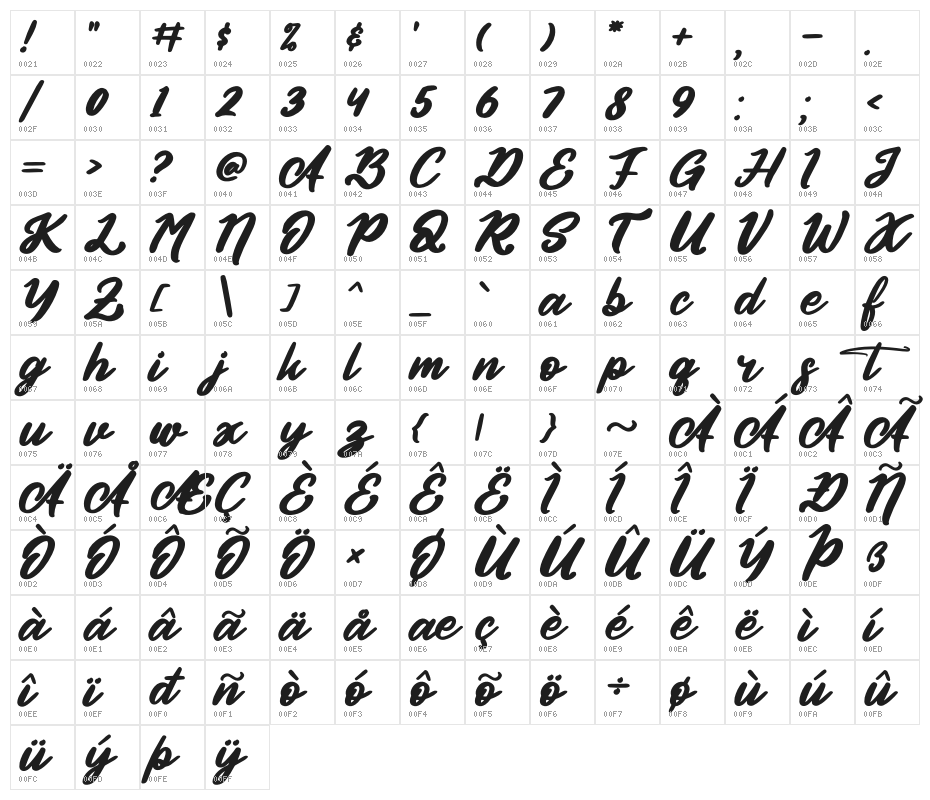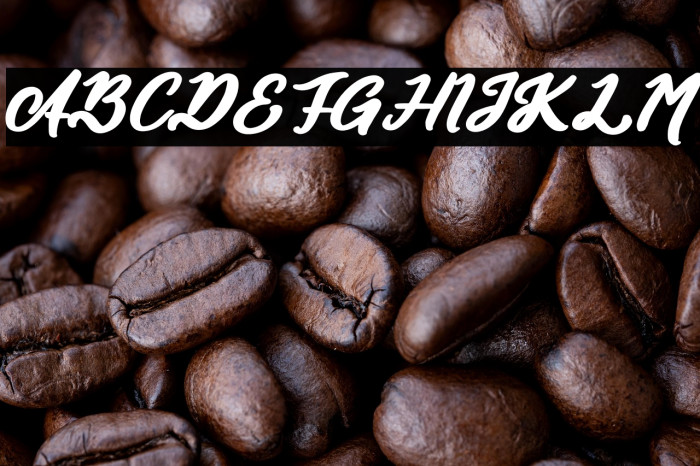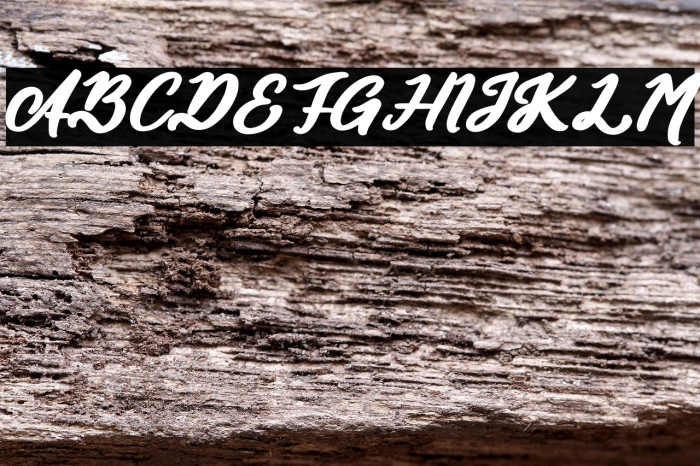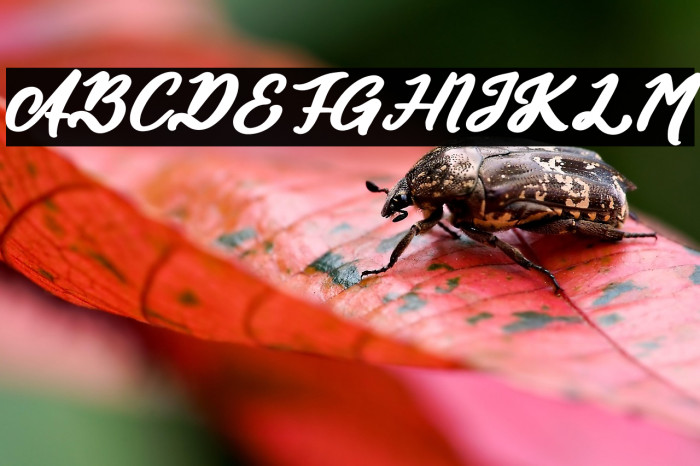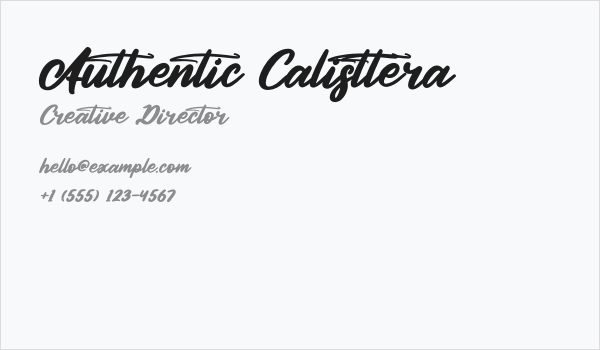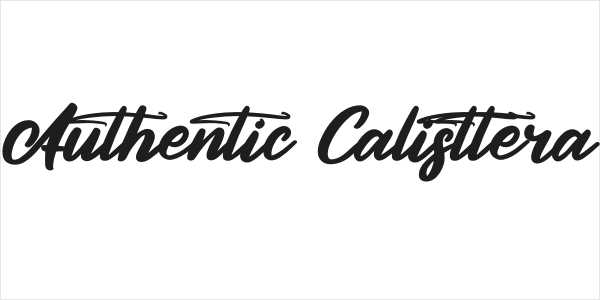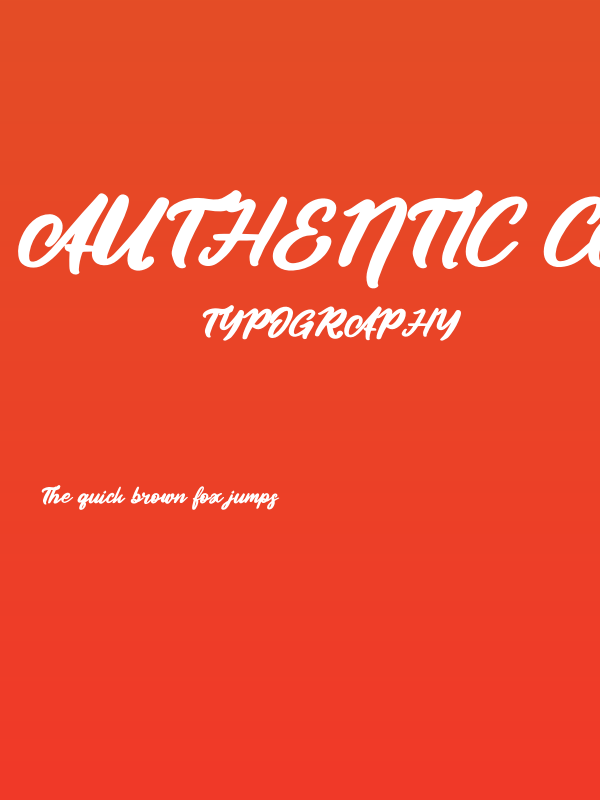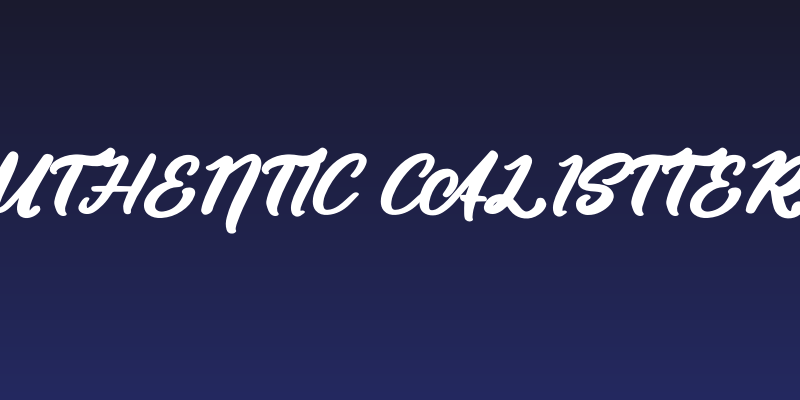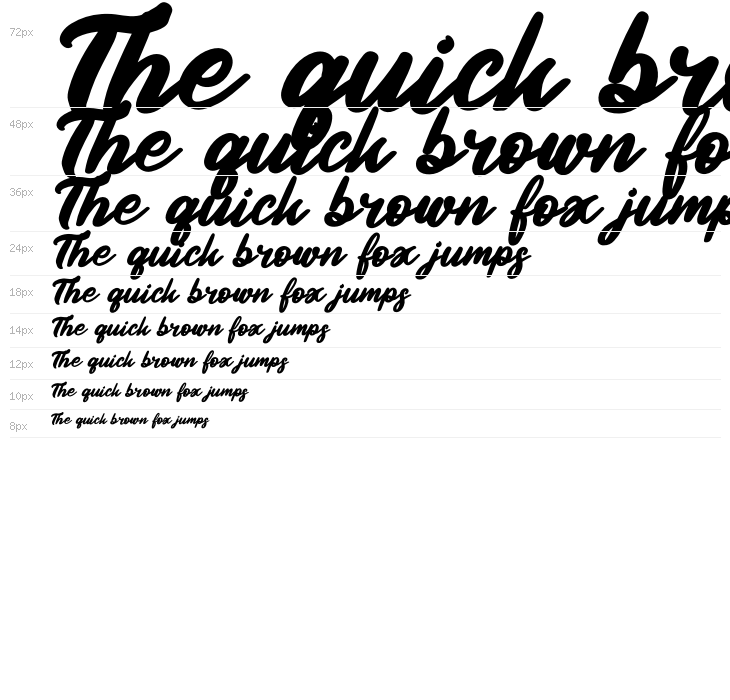
Authentic Calisttera Font
Authentic Calisttera Description
This font exudes a bold and expressive style, characterized by its fluid, cursive script that mimics the elegance of handwritten calligraphy. The uppercase letters are slightly more upright, while the lowercase letters flow seamlessly into one another, creating a sense of movement and grace. The numerals and special characters maintain the same dynamic and bold appearance, ensuring consistency across all text. The thick strokes and rounded edges give it a friendly yet sophisticated look, making it suitable for a variety of creative projects.